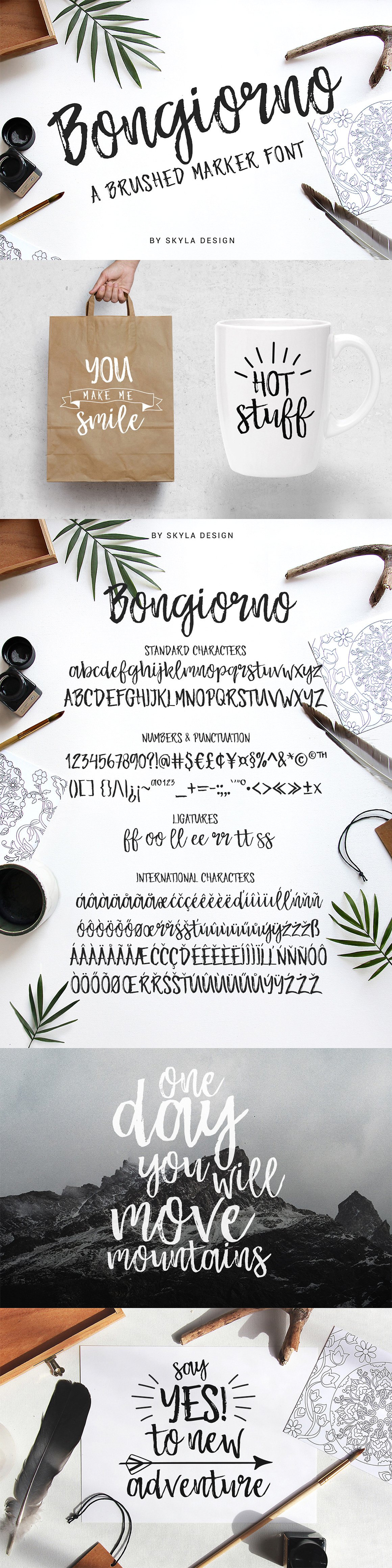
Bongiorno Brush
Bongiorno Brush Font
Brush marker font – Bongiorno
Bongiorno is a brushed marker script with a rough edge and loads of texture for a brushed look. This font is perfect for using in ink, brushed designs and works great for display headers, invitations, posters, T-shirts, greeting cards and branding materials.
Brush Marker